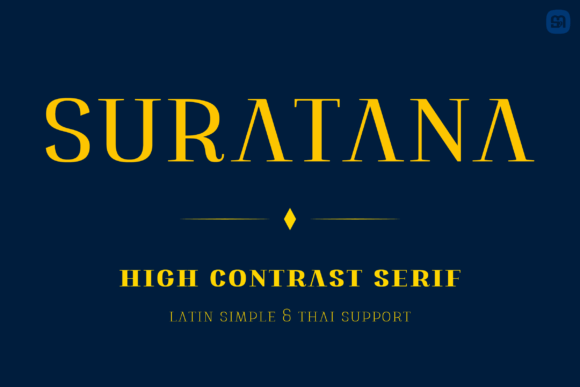
**Introducing Suratana: The Serif Font That Commands Attention**
Indulge in the timeless elegance of Suratana, a captivating serif font that exudes sophistication and style. Its bold curves and striking contrast will effortlessly elevate your designs, making every headline, logo, and display an unforgettable masterpiece.
**Why Suratana Is Your Perfect Font Choice:**
- **Unleash Emotional Resonance:** Suratana's commanding presence evokes a profound emotional connection. Its sharp angles and graceful curves stir the soul, leaving an indelible mark on your audience.
- **Create Unforgettable Headlines:** As the Best Font For A Headline, Suratana commands attention with its undeniable charisma. It captivates your readers from the first glance, drawing them into your message and igniting their curiosity.
- **Elevate Your Designs to New Heights:** Suratana's innate elegance transcends the ordinary, transforming your designs into captivating works of art. Its versatility seamlessly complements a myriad of design styles, ensuring effortless integration into your projects.
- **Experience Unparalleled Craftsmanship:** Created by the renowned DHAMMADHA STUDIO, Suratana embodies the pinnacle of font design. Each character is meticulously crafted to perfection, ensuring exceptional quality and readability.
- **Make a Statement with Style:** Suratana is not just a font; it's a statement. Its distinct personality empowers you to express your unique style and leave a lasting impression on the world.
**Embrace the Power of Suratana Today**